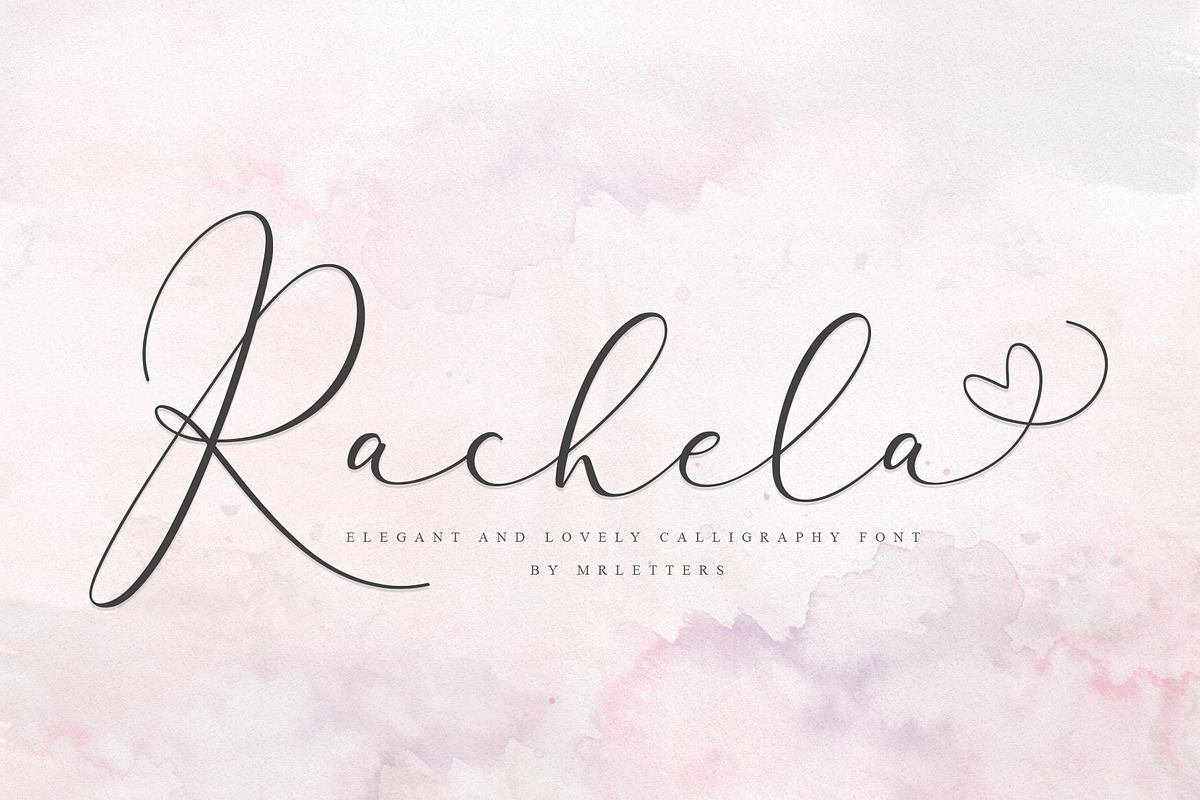
Rachela – Lovely Calligraphy Font Free Download is a graceful and elegant script typeface inspired by classic calligraphy and modern romance. With its flowing curves, delicate swashes, and refined letterforms, Rachela is perfect for wedding invitations, love letters, branding, greeting cards, and high-end packaging.
Its sophisticated, hand-lettered feel adds a luxurious and heartfelt touch to any design. Whether you're working on a romantic quote, a boutique logo, or stylish social media content, Rachela brings charm, warmth, and femininity to your typography.
Designers love Rachela for its timeless beauty, versatility, and flawless performance in both print and digital projects. Want to elevate your next design with romantic elegance? Download Rachela – Lovely Calligraphy Font Free Download and let your words bloom with grace and emotion.